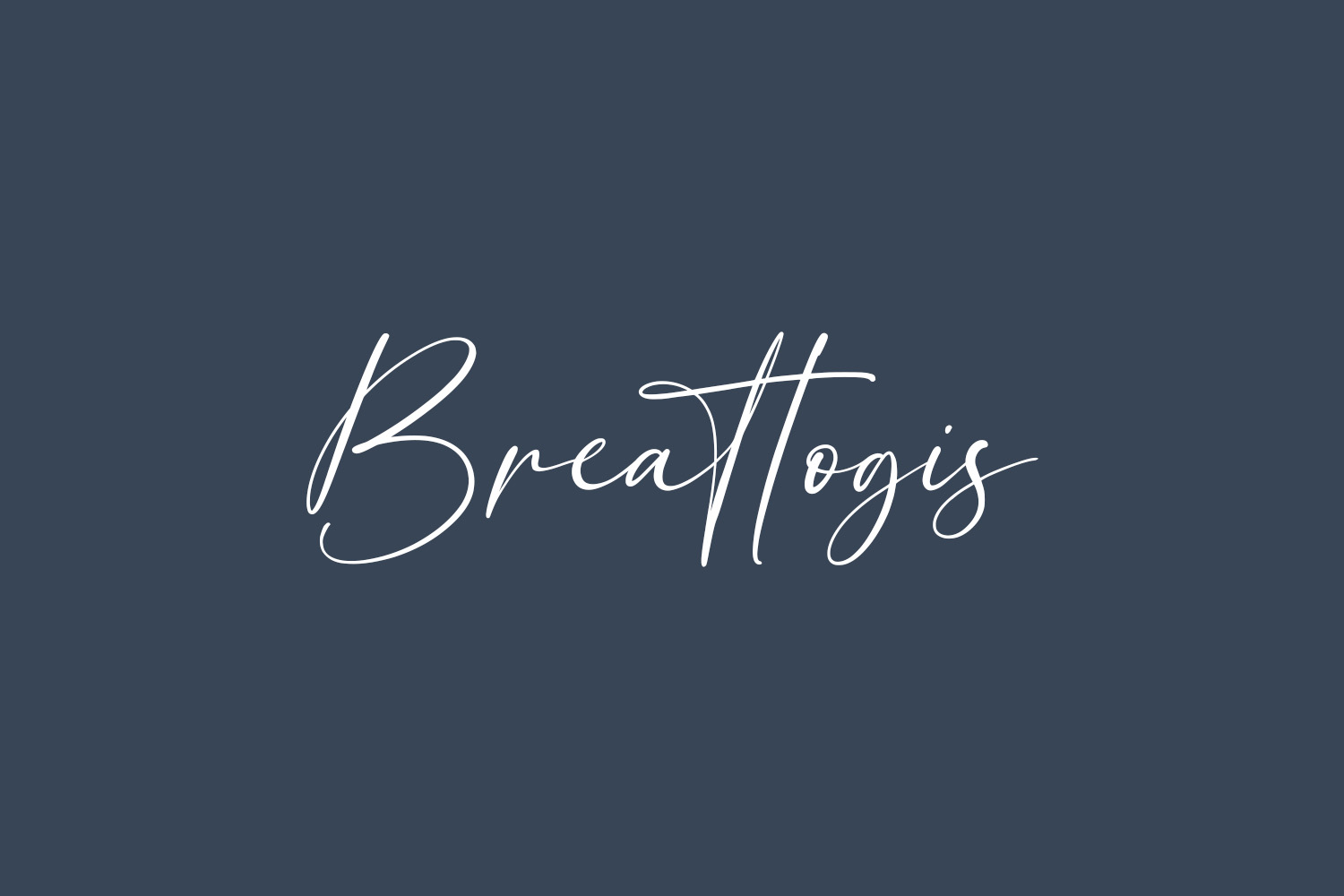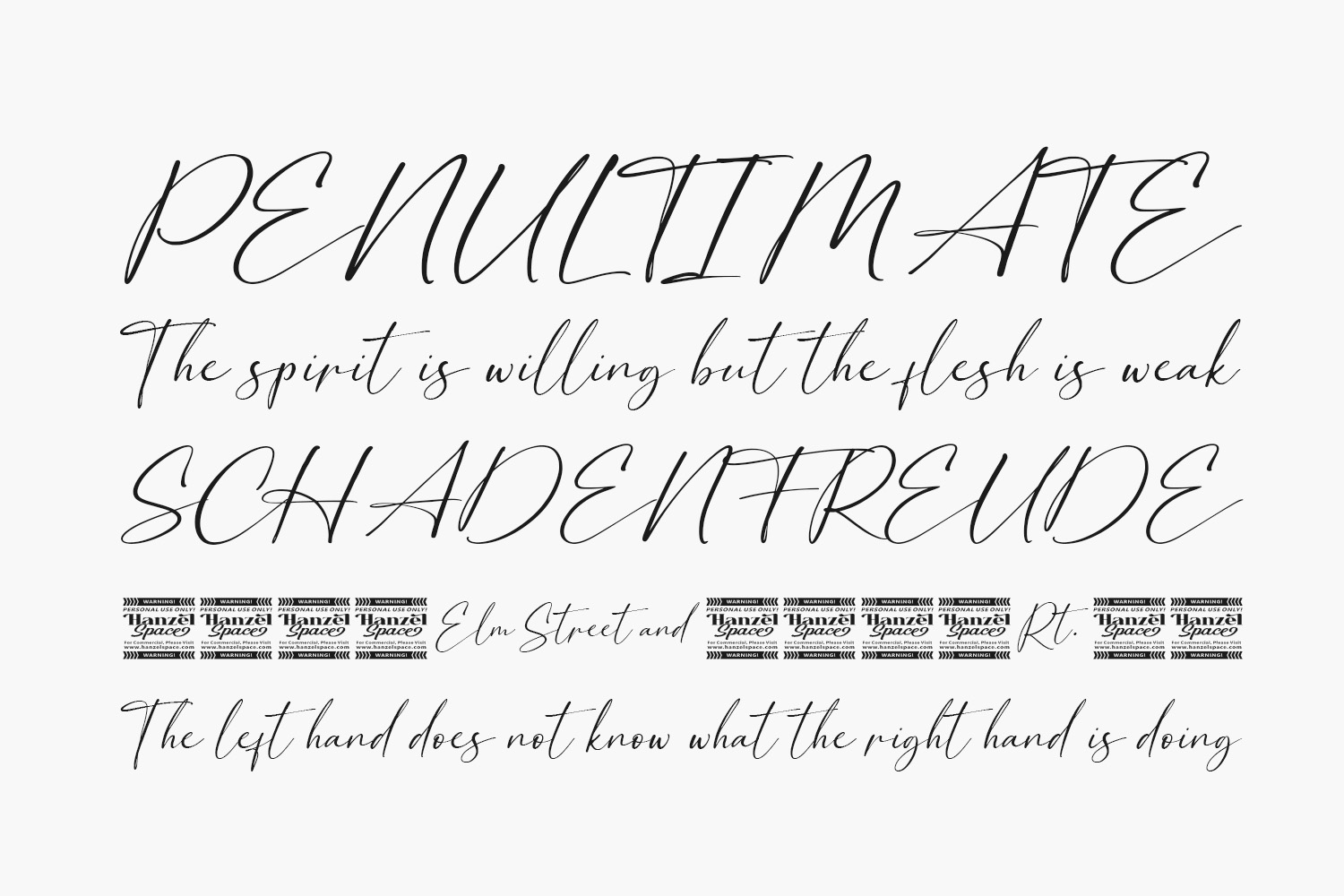
Breattogis Free Font is a modern script font with contemporary, sophisticated accents. It is perfect for branding, wedding invites, tagline, cards, and maybe for labels and logos. Breattogis Free Font was designed by Hanzel Space is a demo and free for personal use only. Please purchase the full version for commercial use.